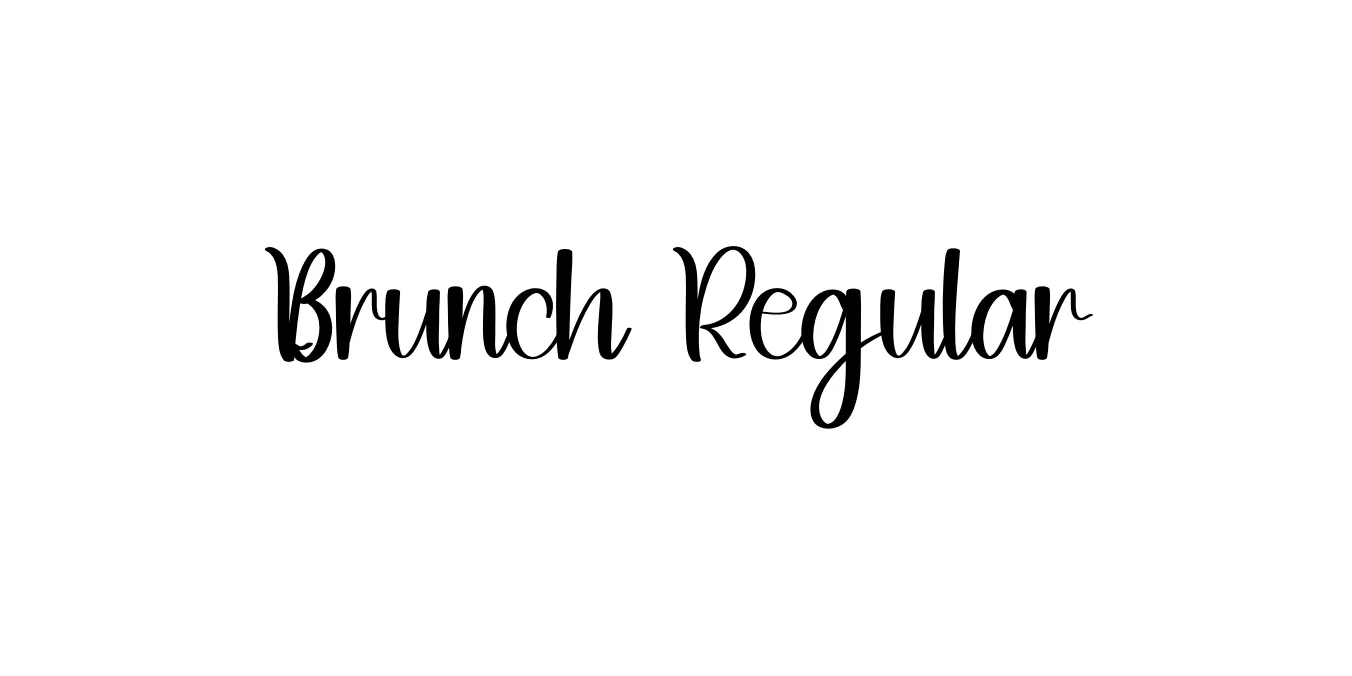
Brunch Regular
Designed by Youssef Habchi
Brunch Regular is a sophisticated and fluid script font designed by the renowned type designer Youssef Habchi. Characterized by its organic, hand-drawn strokes and elegant transitions, this typeface captures a sense of effortless style and personal touch. The design balances rhythmic consistency with natural variations, making it an excellent choice for projects that require a human-centric aesthetic without sacrificing professional polish.
Since its release, Brunch Regular has become a favorite among graphic designers for high-end branding and editorial work. Its versatile nature allows it to perform beautifully across various media, from printed wedding stationery to digital lifestyle blogs. The font includes a comprehensive set of characters that support a wide range of expressive possibilities, solidifying its place as a staple in modern calligraphy-inspired typography.
Brunch Regular Best Uses
Ideal for creating unique and memorable brand identities.
Adds a personal and sophisticated touch to wedding and event stationery.
Perfect for eye-catching quotes and lifestyle imagery.
Enhances product labels with a premium, hand-crafted feel.